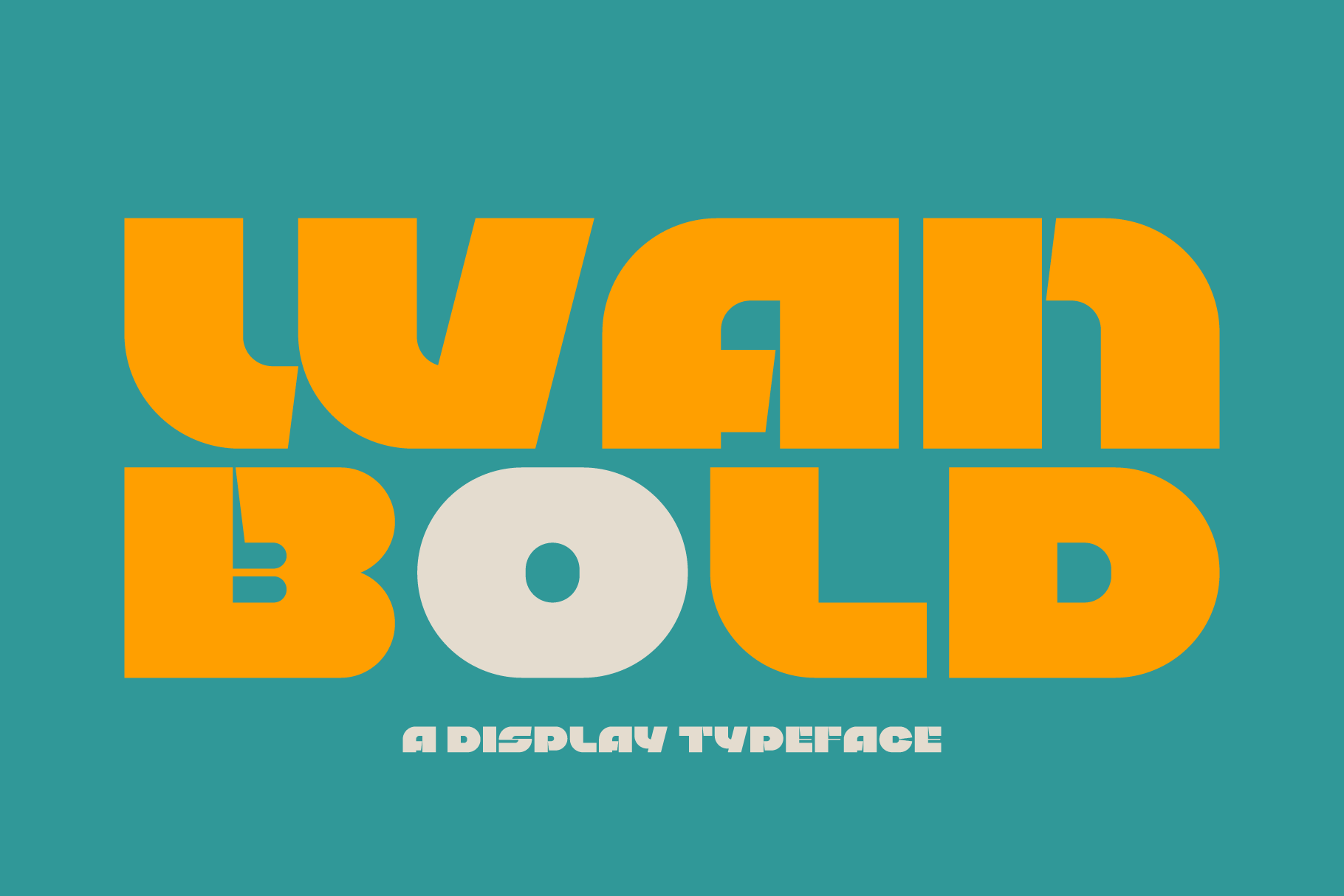
Wanbold - A Display Typeface
Unleash the power of bold geometry and playful deconstruction with Wanbold, a head-turning display typeface designed to electrify your creative projects. With its chunky, modular letterforms and striking split-apart style, this font is perfect for designers who want to make a bold, modern, and futuristic impression.
Inspired by stencil aesthetics and sci-fi minimalism, Splitcore combines clean lines with unexpected cuts and curves, making each character feel dynamic and alive. Ideal for posters, branding, album covers, motion graphics, and experimental UI, it brings a techno-retro energy that stands out in both digital and print formats.
✦ Perfect For:
- Futuristic branding
- Music or game titles
- Urban fashion
- Creative advertising
- Cutting-edge tech startups
Make your typography unexpected, edgy, and unforgettable — with Wanbold, you're not just setting type; you're making a statement.